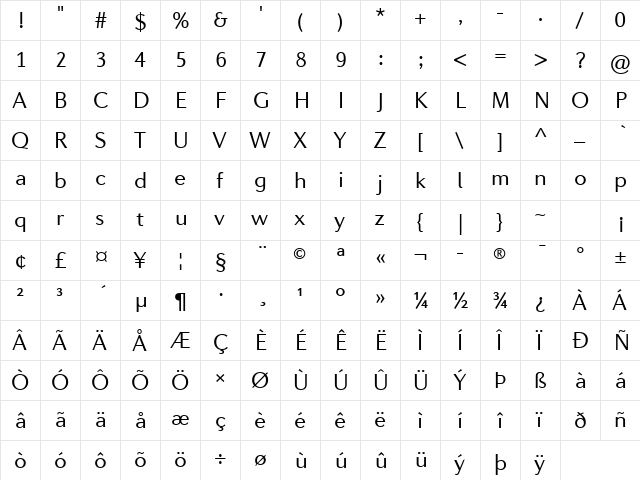
Diverda Sans Com Light
| Foundry | Linotype GmbH |
| Designer | Daniel Lanz |
Design Context for Diverda Sans Com Typeface
Diverda Sans Com takes a measured approach to typography — its balanced proportions and neutral character make it a reliable workhorse for both digital and print work. The delicate stroke weight brings airiness and refinement to layouts.